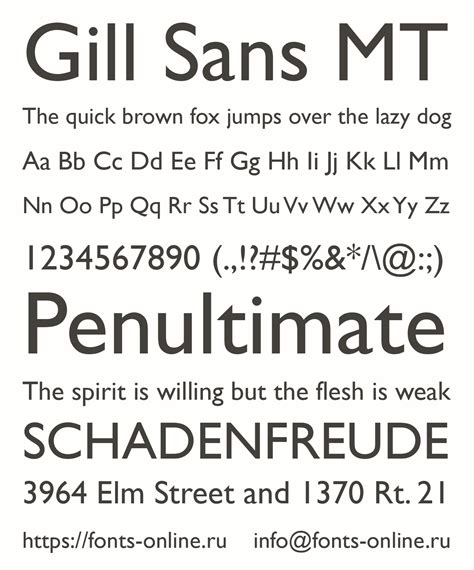
Font Gill Sans. Its clean lines and geometric shapes make it a versatile choice for many design projects, while its range of weights and. Gill sans is the famous set of humanist sans serif fonts originally designed by eric gill and the monotype type drawing office, first appearing in 1928.
Web gill sans font is a timeless typeface that continues to be popular among designers today. The gill’s friend stanley monson is the one who was. Gill sans font family was designed by eric gill and published by monotype. Gill sans is the famous set of humanist sans serif fonts originally designed by eric gill and the monotype type drawing office, first appearing in 1928. Web introducing gill sans font that is a geometric sans serif typeface having a humanist texture which was developed by eric gill and released in 1928. Its clean lines and geometric shapes make it a versatile choice for many design projects, while its range of weights and. Web complete family of 15 fonts: Gill sans is based on edward johnston 's 1916 underground alphabet,. Gill sans contains 36 styles and family package options.
Gill sans is the famous set of humanist sans serif fonts originally designed by eric gill and the monotype type drawing office, first appearing in 1928. Gill sans is based on edward johnston 's 1916 underground alphabet,. Gill sans font family was designed by eric gill and published by monotype. Web gill sans font is a timeless typeface that continues to be popular among designers today. Its clean lines and geometric shapes make it a versatile choice for many design projects, while its range of weights and. Web complete family of 15 fonts: Gill sans is the famous set of humanist sans serif fonts originally designed by eric gill and the monotype type drawing office, first appearing in 1928. Gill sans contains 36 styles and family package options. Web introducing gill sans font that is a geometric sans serif typeface having a humanist texture which was developed by eric gill and released in 1928. The gill’s friend stanley monson is the one who was.